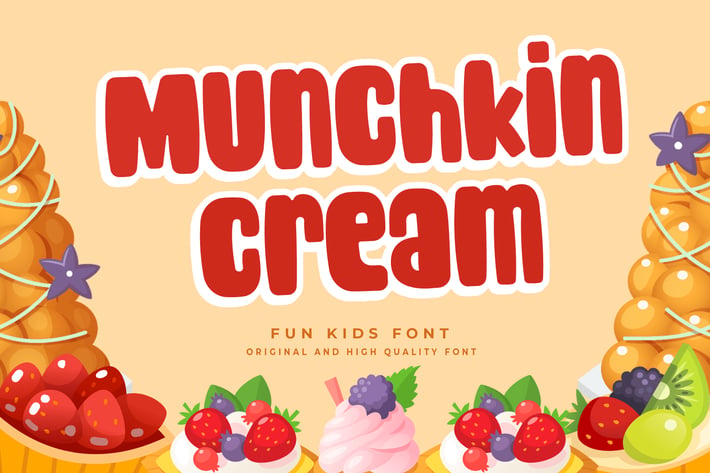
Munchkin Cream - The Fun and Cute Kids Font
Introducing Munchkin Cream - a delightful and charming font that's perfect for all your kids-related design projects. Whether you're designing an online game, a party invitation, or a children's clothing line, Munchkin Cream is the font that will bring your designs to life.
With its playful and whimsical style, Munchkin Cream is sure to captivate the hearts of both children and adults alike. Its cute and comic appearance makes it perfect for creating fun and entertaining designs, while its legibility ensures that your message is always clear and easy to read.
Munchkin Cream is versatile and can be used in various design applications. Its clean and modern lines suit fast food menus, posters, movie titles, magazines, and social media page covers. Its fun and lively character also makes it perfect for children's birthday greetings, party posters, and other kids-related business designs.
In summary, Munchkin Cream is the perfect font for anyone looking to add a touch of fun and cuteness to their designs. So why not let your imagination run wild and see where Munchkin Cream takes you?